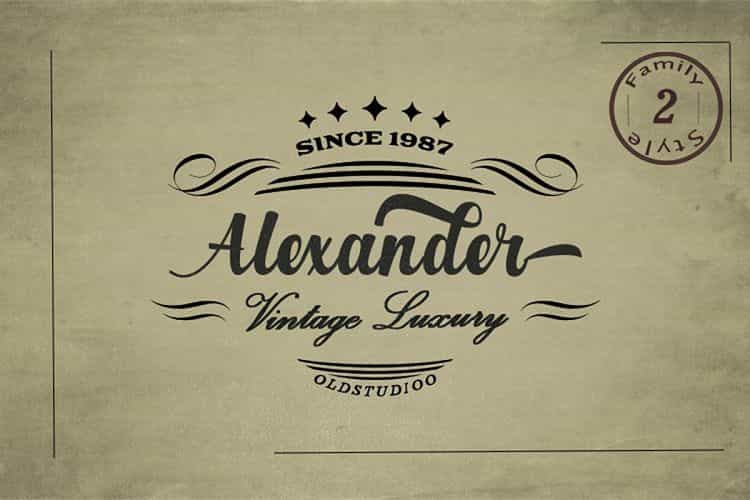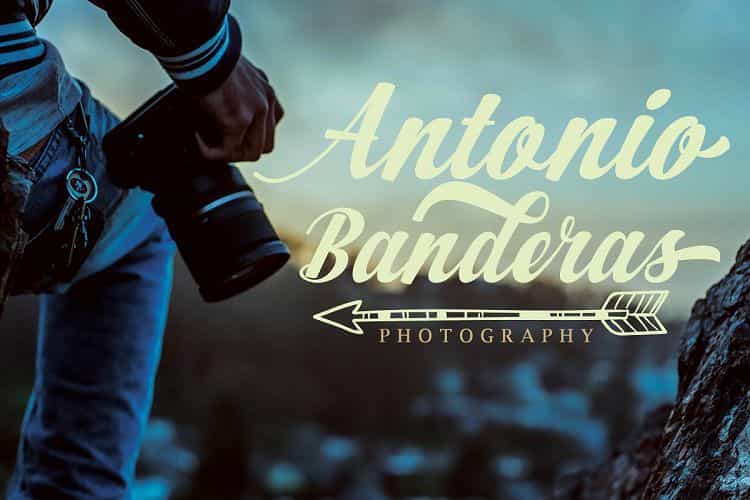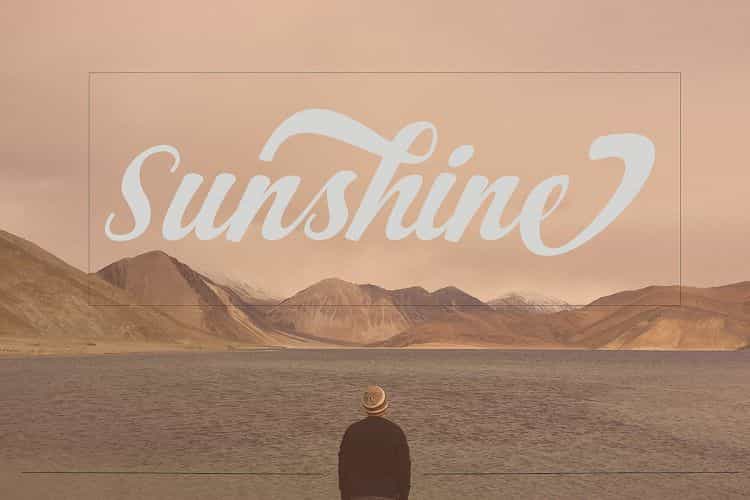
Introducing Alexander Typeface. Fonts are created and distributed by Old_Studio. Alexander is a script typeface which has its own character. You can create a logo, badge, insignia, packaging, headline, poster , t-shirt/apparel and even greeting card or wedding.